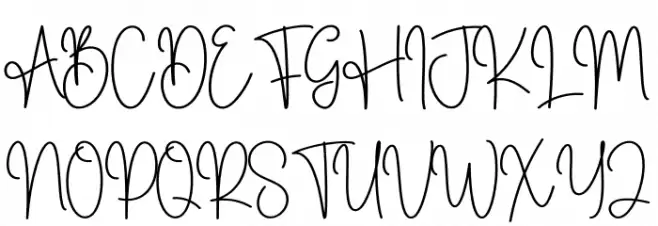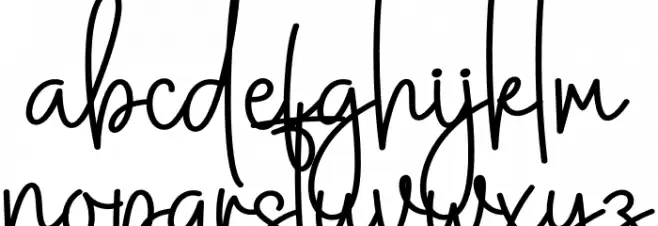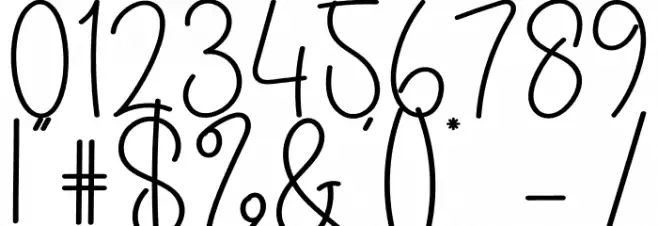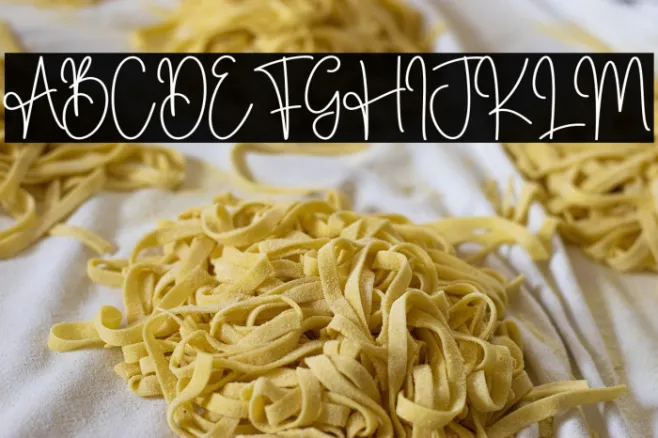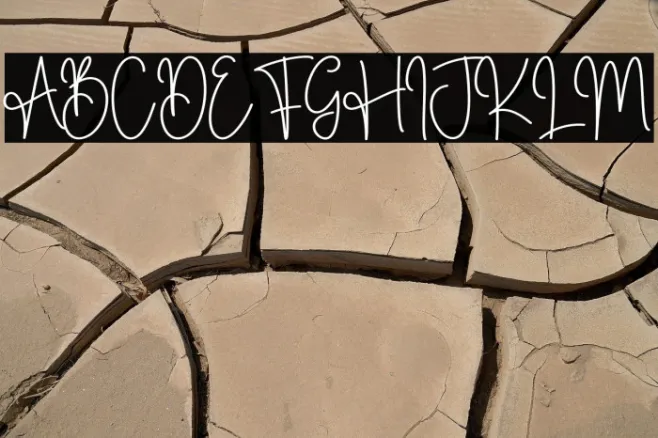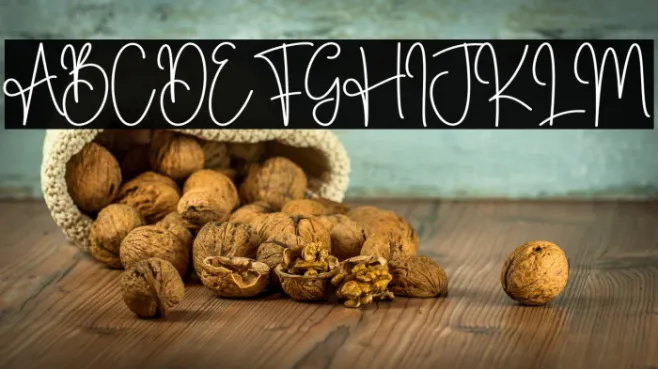
Biscuit Christmas
This font features a playful and whimsical script style, characterized by its flowing, interconnected letters. The uppercase letters are elegantly looped, while the lowercase letters maintain a consistent, smooth flow. The numbers and special characters complement the overall style with their rounded and fluid forms. The font exudes a casual yet sophisticated charm, making it suitable for creative and festive projects. Its handwritten appearance adds a personal touch, perfect for designs that require a friendly and inviting feel.
A playful and whimsical script font with flowing, interconnected letters.
- Proposed Projects: Ideal for holiday cards, invitations, branding, and festive decorations.
- Category: Script
- Overall Style: Decorative
- Use Case: Logos, Invitations, Greeting Cards